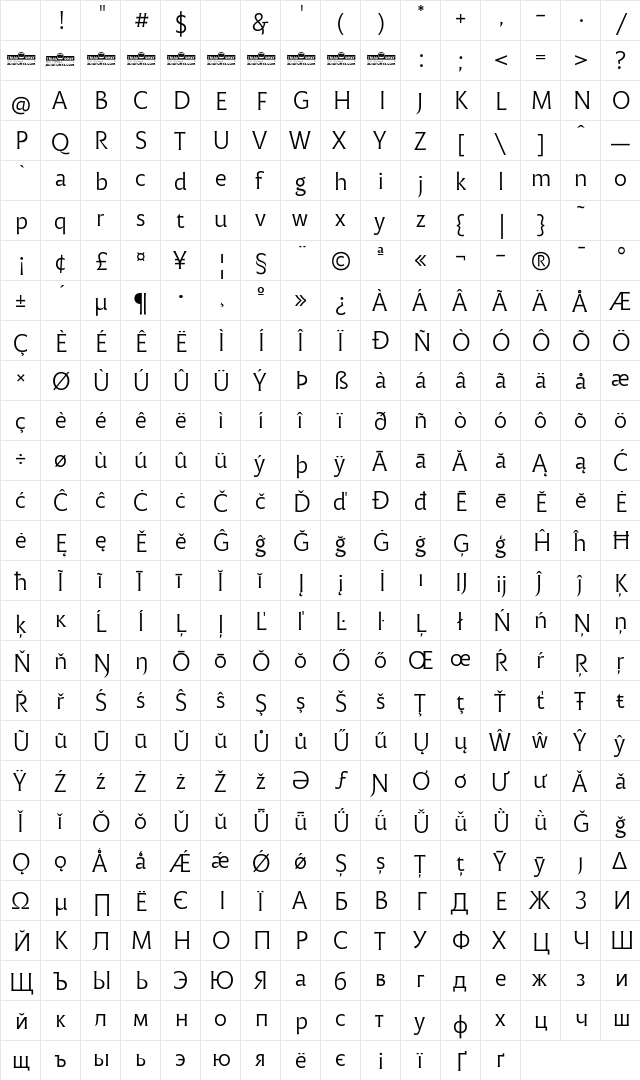
Malik Trial is a composed and adaptable typeface that performs quietly and consistently across a wide range of design contexts.
Pro Tip: Use Malik Trial in both headline and body roles to test its range before committing to a single application.